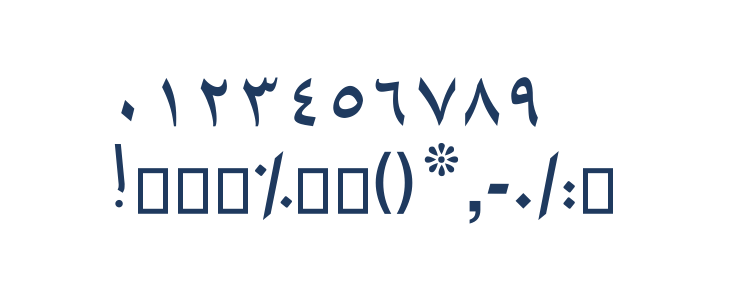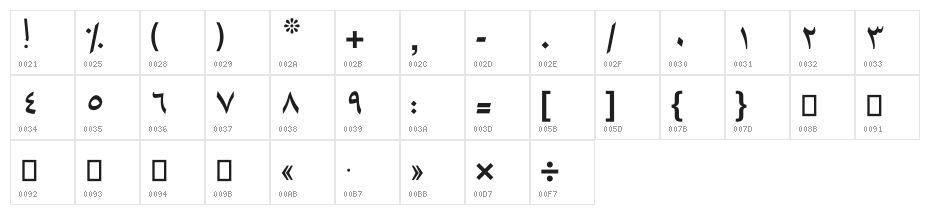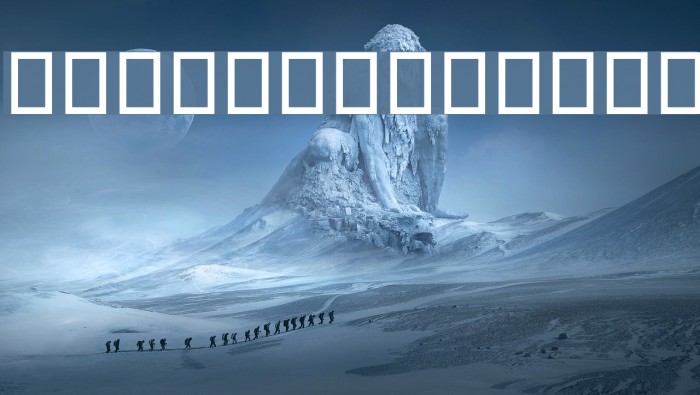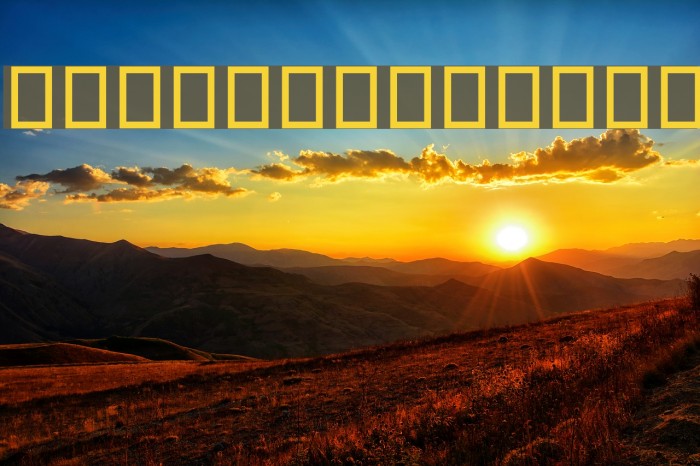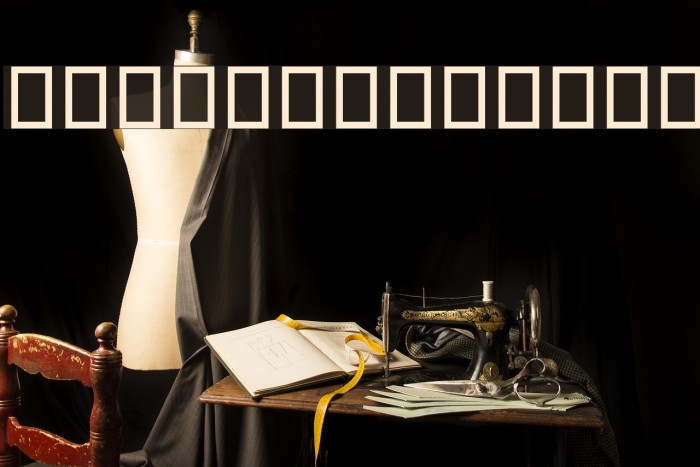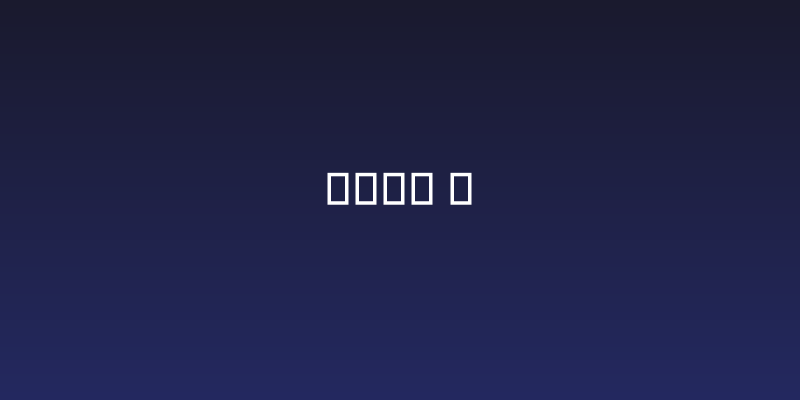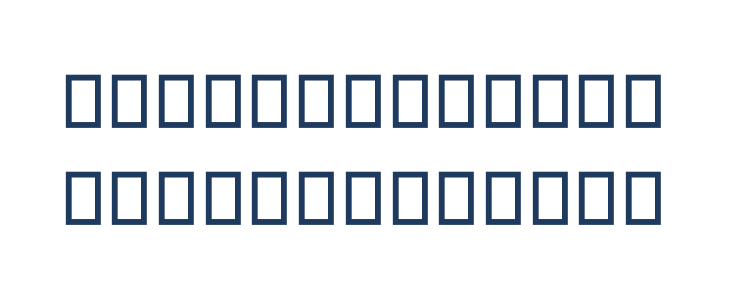
Gerd I Font
Gerd I Description
The image does not display a valid Latin font; instead, it shows placeholder glyphs or unsupported characters for the alphabet, with only numerals and some punctuation in a stylized script-like form.
گالری فانت فارسی پژوهش آريانا - only compatible with Farsi and Arabic
| Overall Style | Unknown |
| Use Case | Not suitable for use. |
| Proposed Projects | Not suitable for standard design projects due to missing character set. |